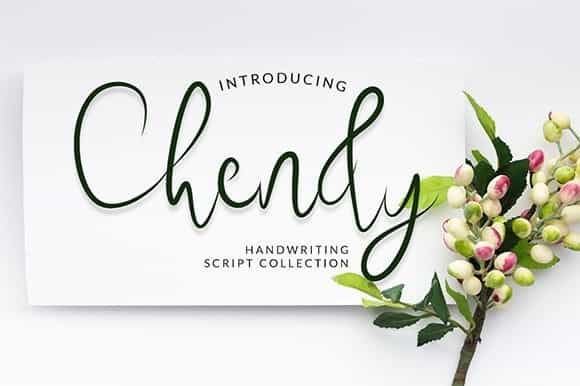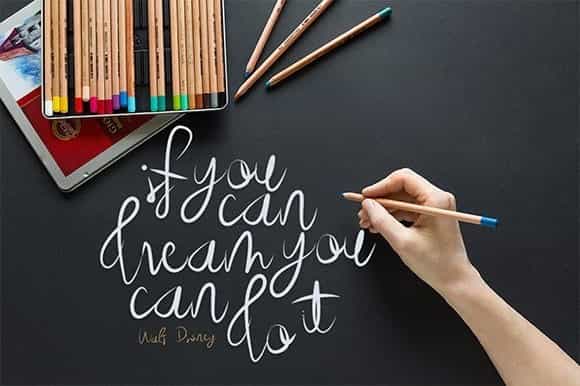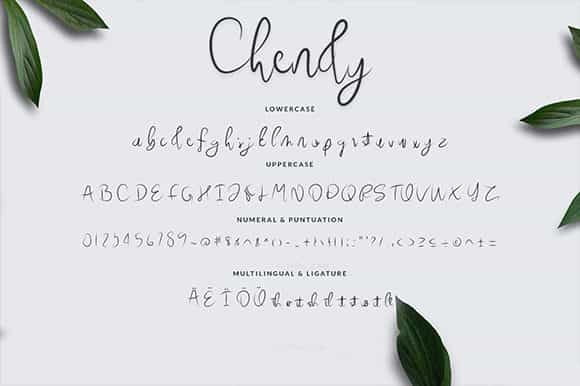
The Chendy font is a hand script font that suits logo, poster, tagline and company spirit. Created by intention for creators, Chendy presents an elegant typographic solution for creative projects. I wish and I pray and I know that one day we’ll meet. But now I must depart, alone.